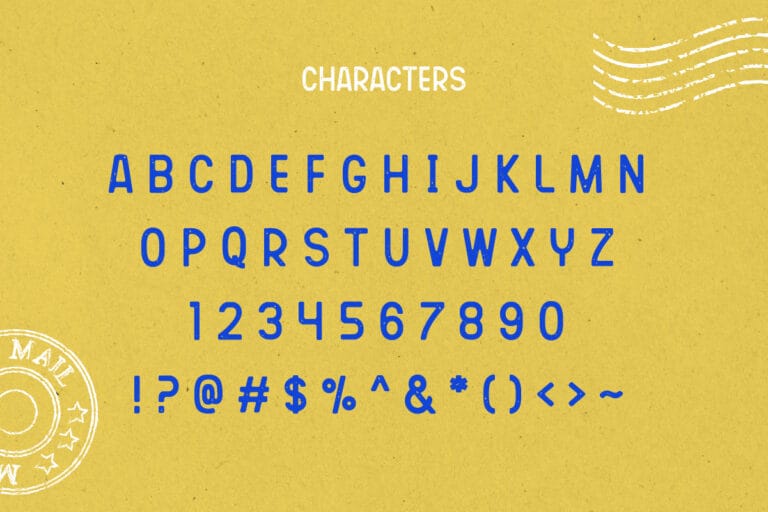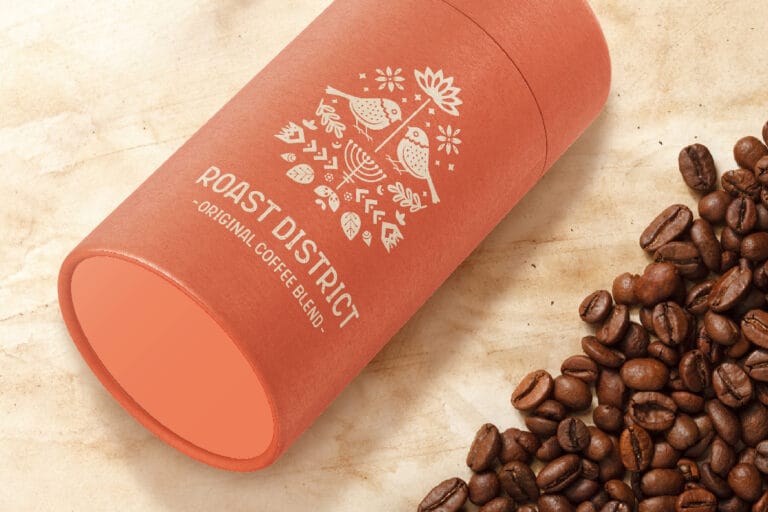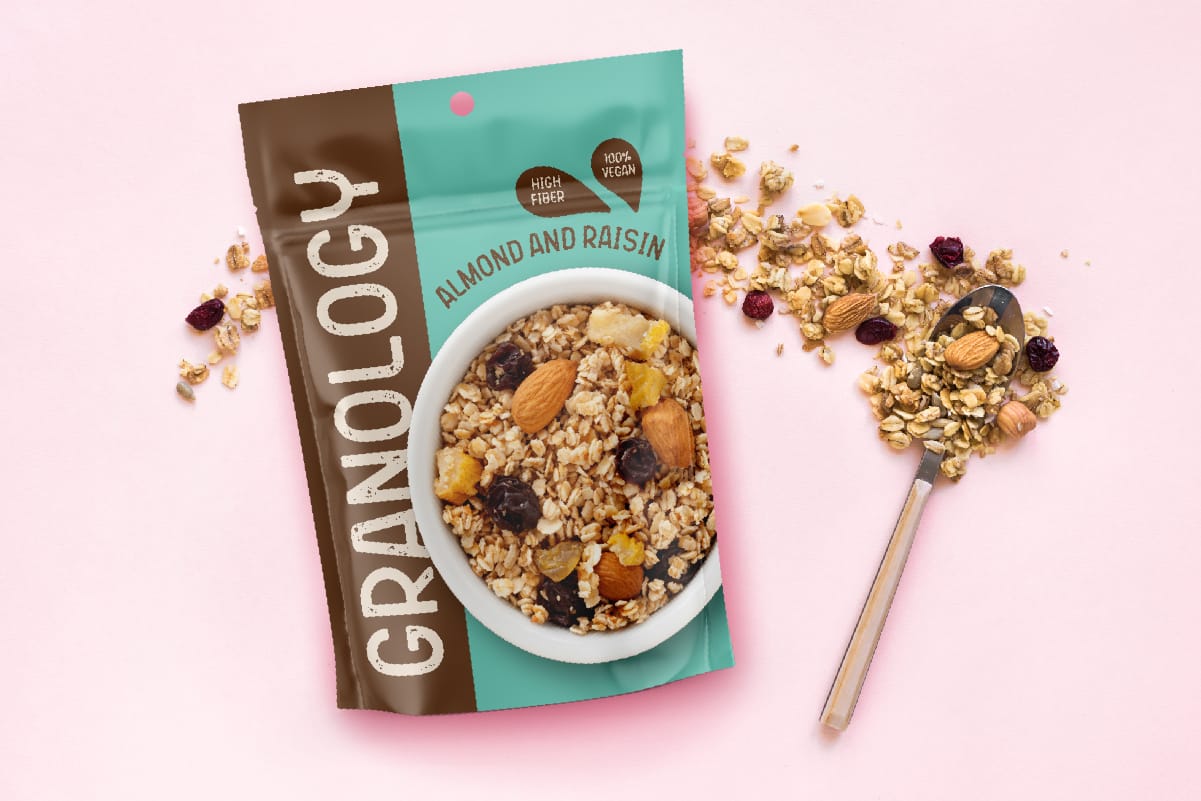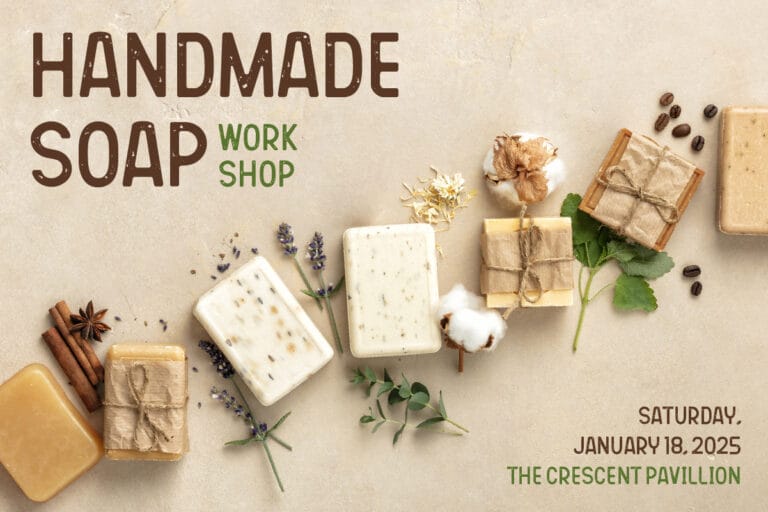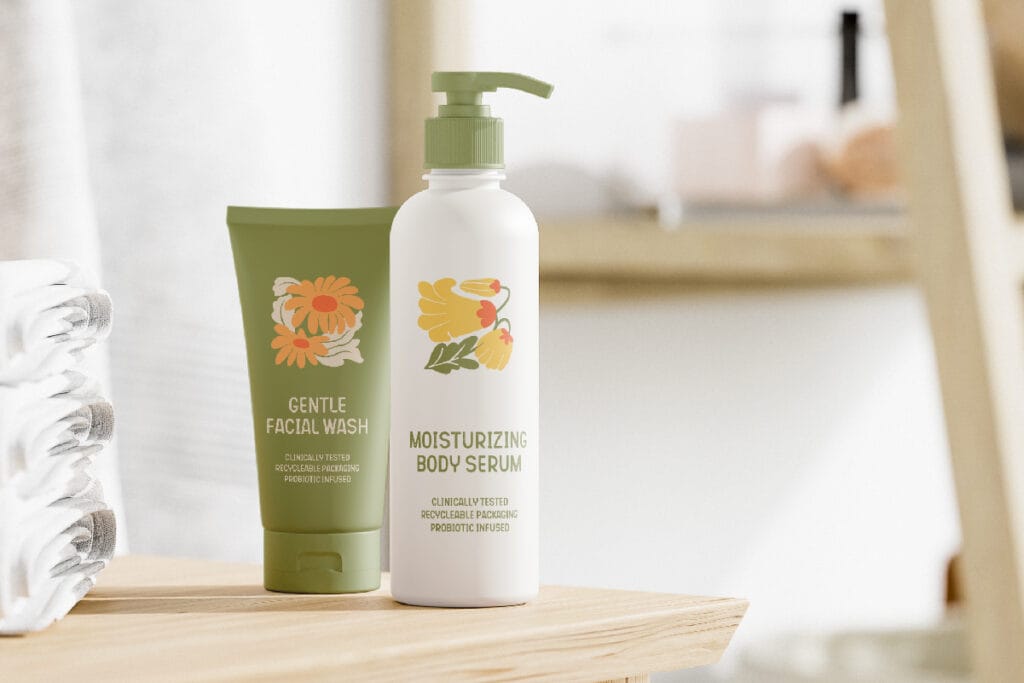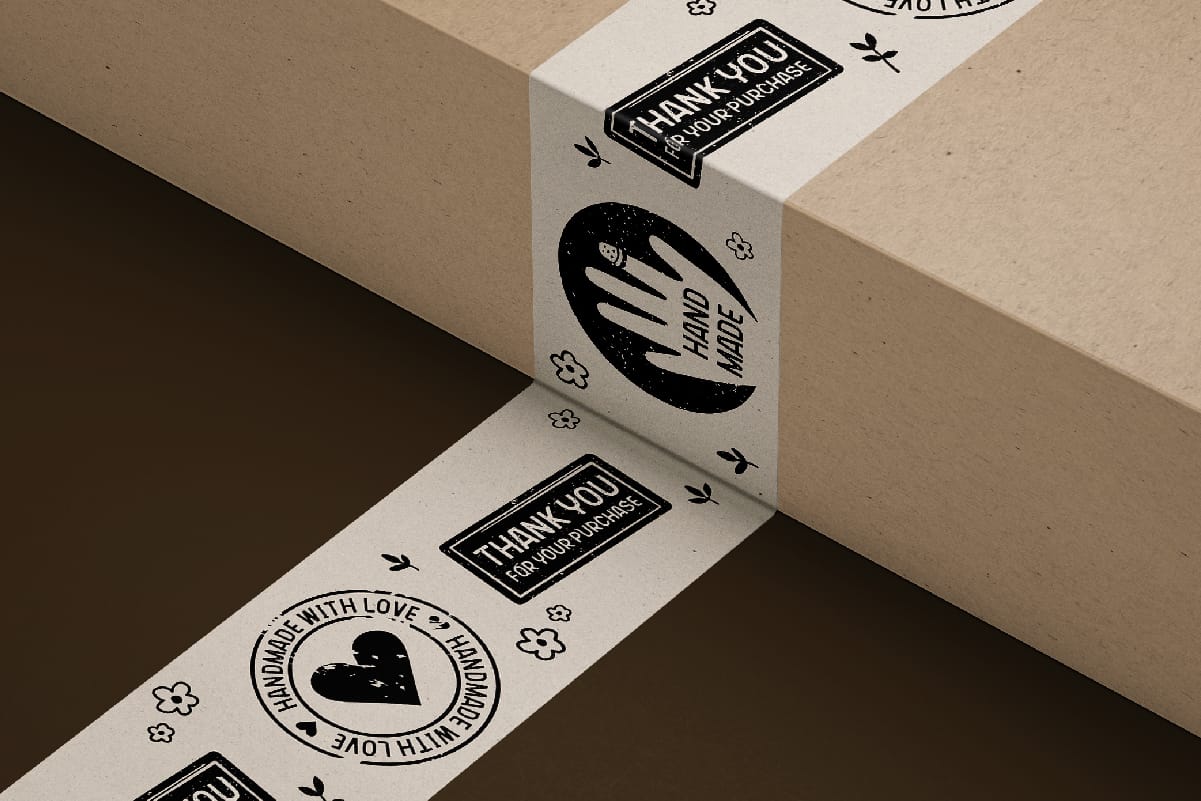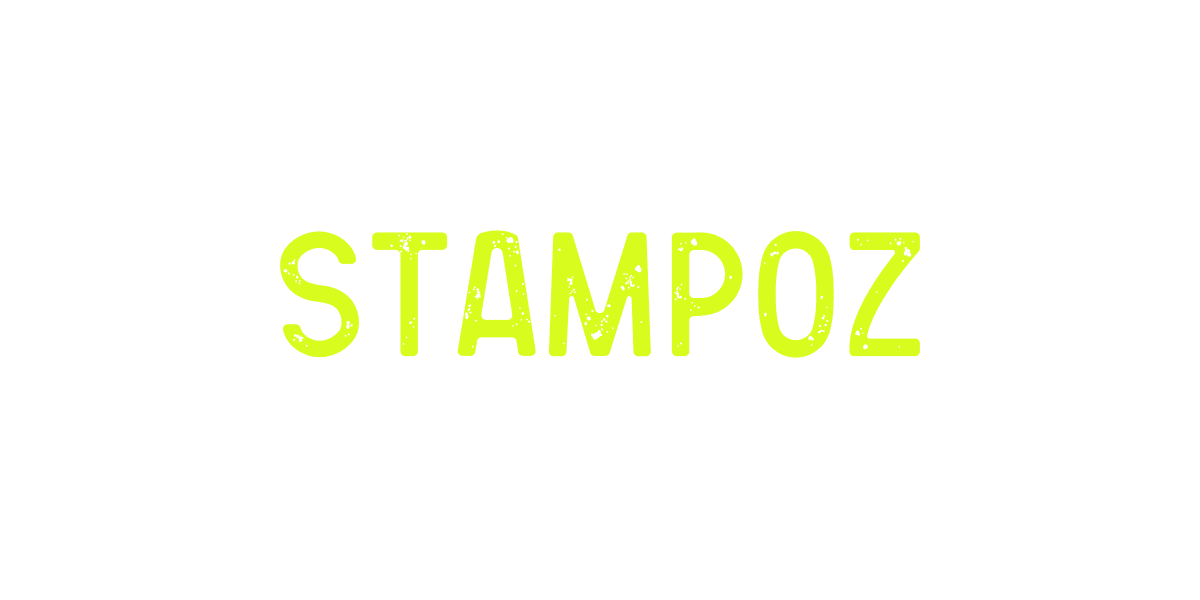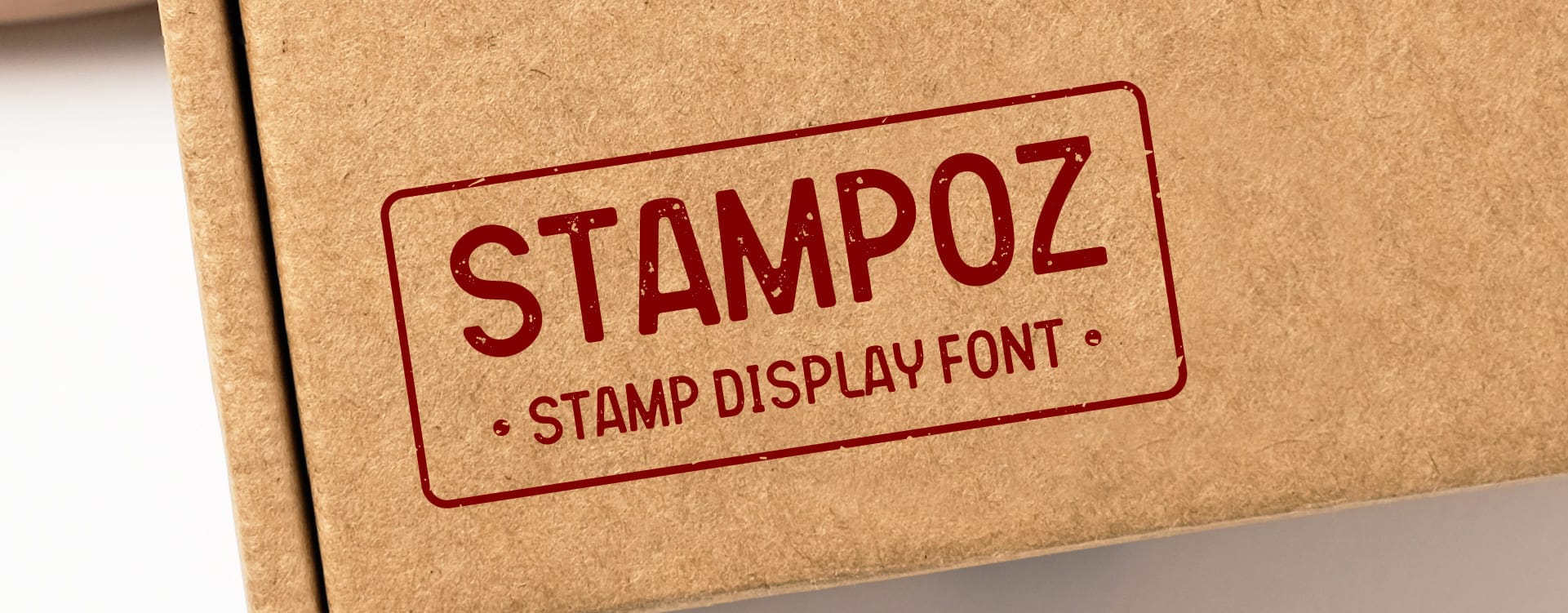
Stampoz is a bold and striking stamp display font designed to make a statement. Featuring uppercase letters with a unique stamp texture, it combines classic and modern elements for a rugged, street-style vibe. Its distinctive texture adds character while maintaining excellent readability, making it perfect for eye-catching designs. Whether you’re creating packaging, social media posts, posters, or other impactful visuals, Stampoz brings a strong, confident presence that grabs attention and leaves a lasting impression.